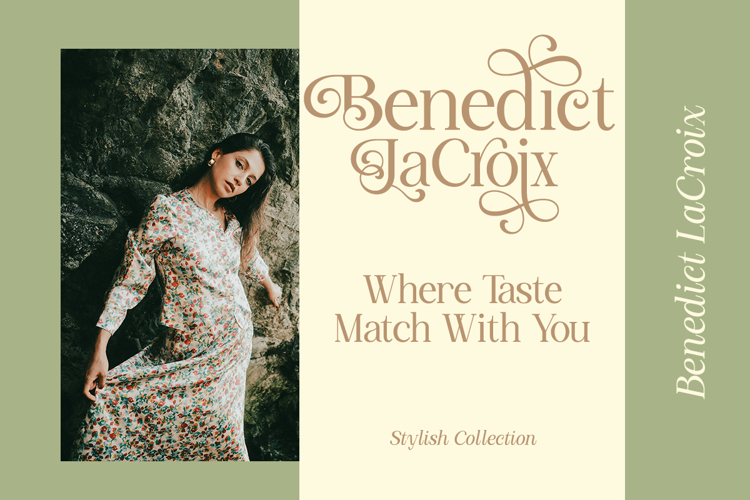
Avoleina Font
Introducing Avoleina, a stunning luxury serif typeface crafted with exquisite elegance and timeless sophistication. Designed for those who crave high-end aesthetics, Avoleina combines classic serif structure with beautifully detailed swashes and flourishes that make every word a piece of art. Perfect for Branding, Logo, Headline, Tagline, Editorial, Packaging, Social Media.
-Alternates & Swashes for stylistic customization
-Uppercase & Lowercase Letters
-Numbers & Punctuation
-Multilingual Support